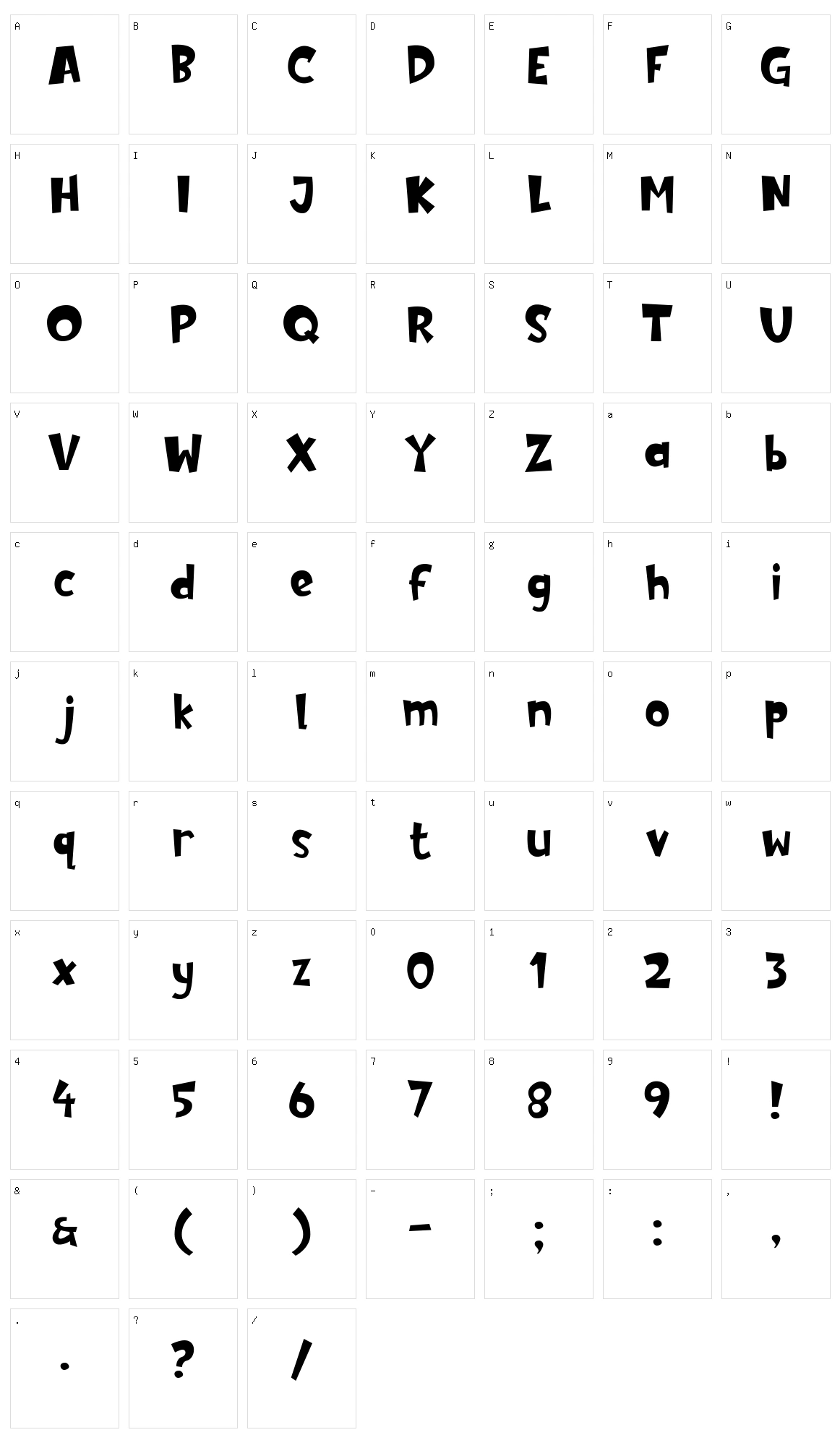
The free font Present Box is carefully designed by Regalëy_21, showcasing a thoughtful balance of creativity and usability and falls under the Cartoon font style. When you download the ZIP file, it contains only 14.25 KB of font files, making it lightweight and quick to download. Please review the license details below to understand permitted usage and distribution rights. If license information is not available, we recommend using this font for personal projects only or contacting the author directly for commercial usage permissions.